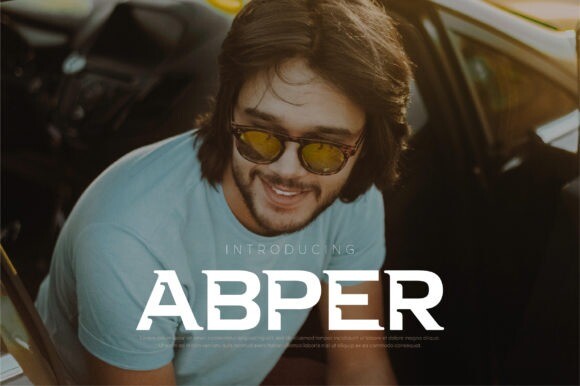
Abper Font
Abper is a bold and incredibly modern display font. No matter the topic, this font will be an incredibly asset to your fonts’ library, as it has the potential to elevate any creation.